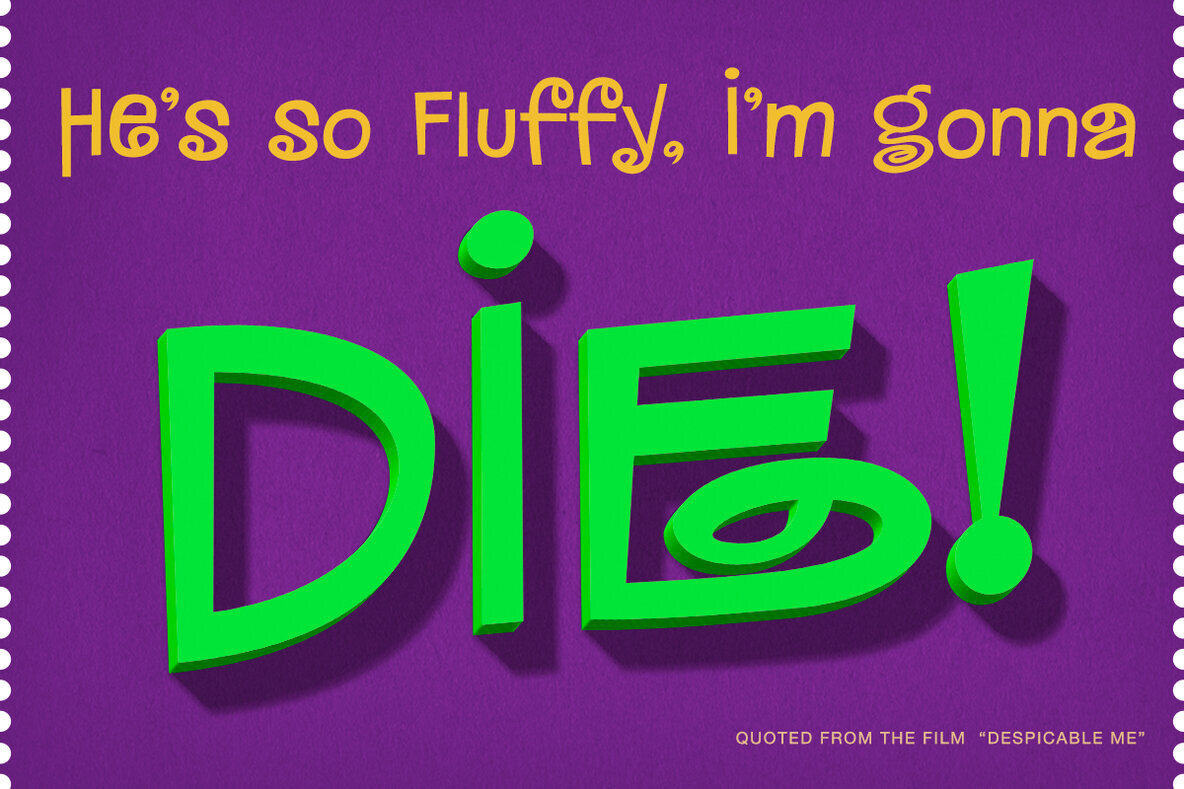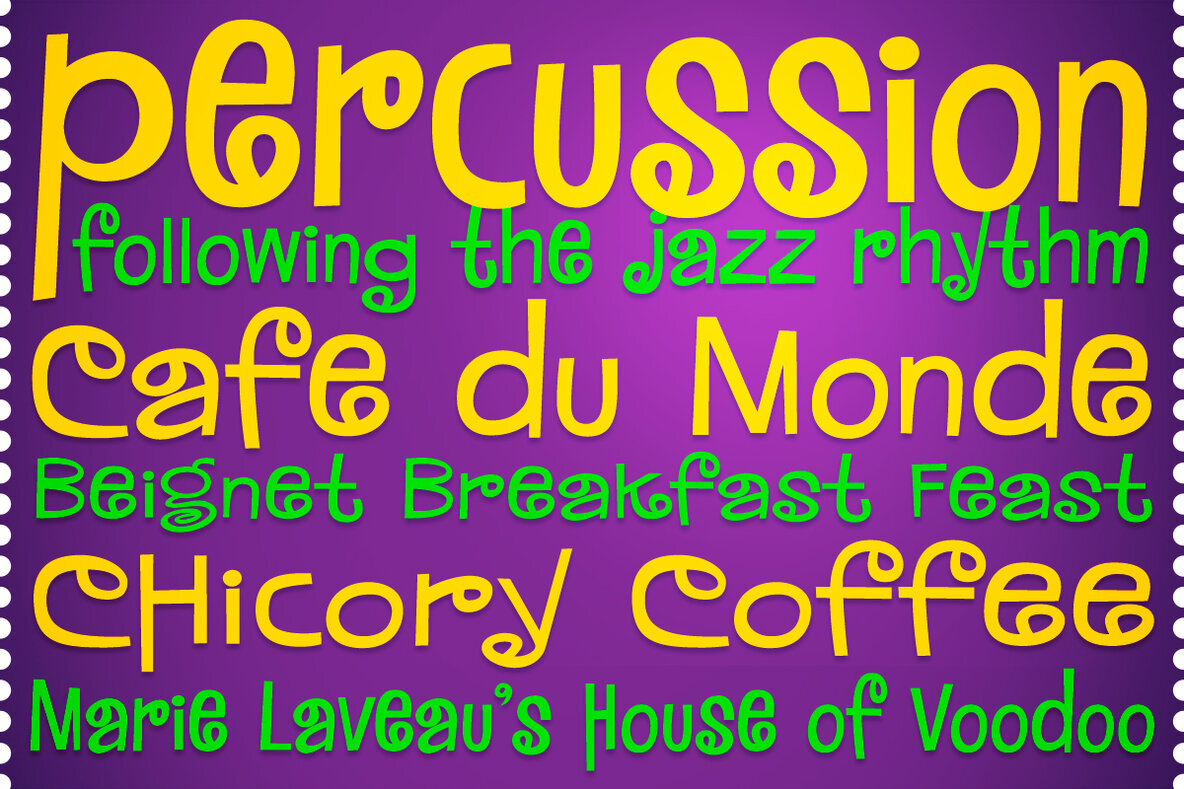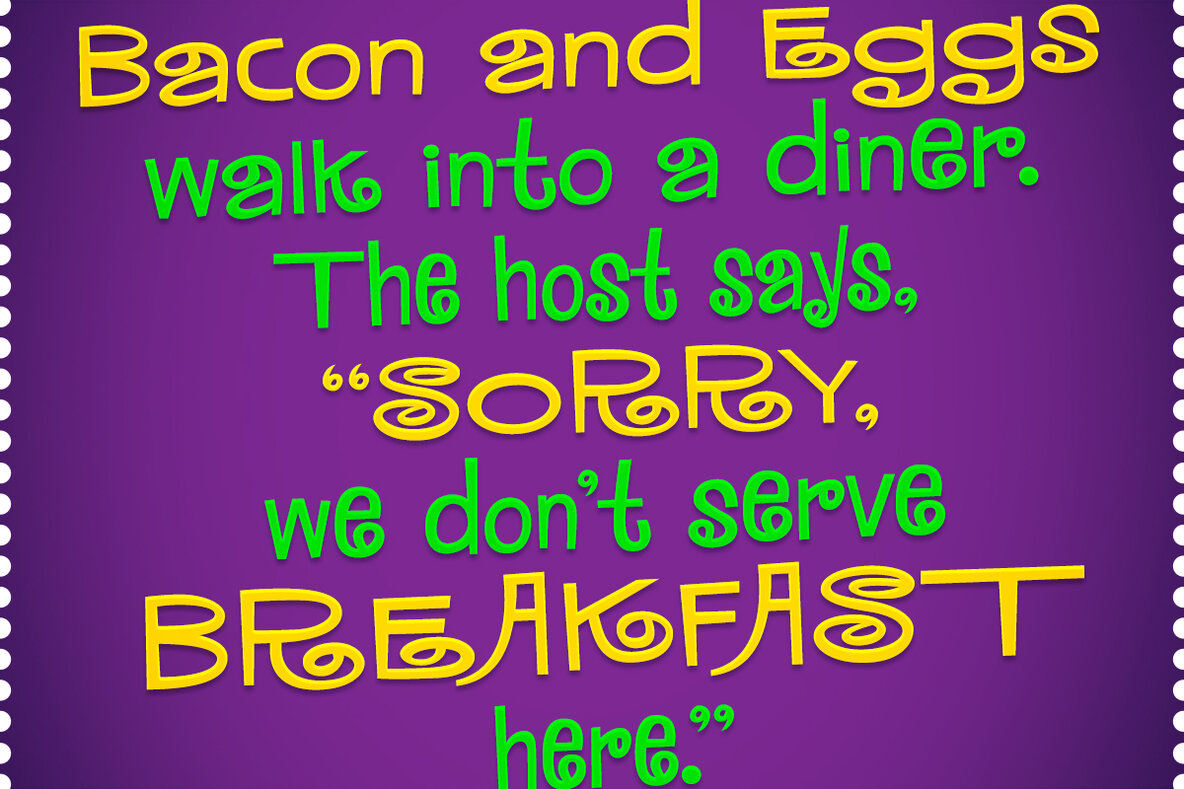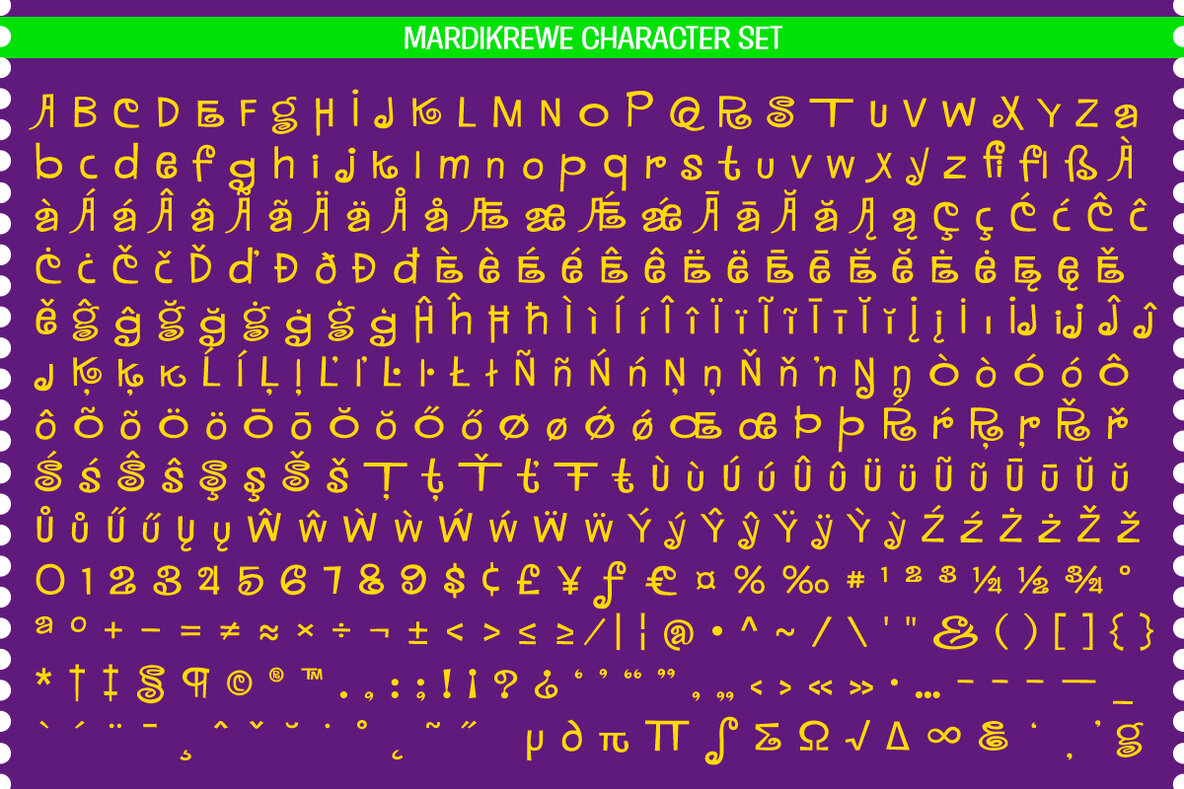
MardiKrewe Font
Mardi Krewe PB
Mardi Krewe PB ExNarrow
Mardi Krewe PB ExWide
Mardi Krewe PB Narrow
Mardi Krewe PB Wide
The MardiKrewe typeface exudes a wild and carefree spirit, packed with spunk and personality. Originally inspired by the film typeface MardiGras from Lettergraphics, it has been transformed into a fully fleshed-out character set. This vibrant font family now includes five distinct widths: Extra Narrow, Regular, Wide, and Extra Wide, offering versatility to suit a wide range of creative and dynamic design projects.
This typeface is perfect for designers seeking to inject fun and energy into their work, whether for digital designs, posters, or branding materials. The various widths provide flexibility, ensuring that the typeface can be adapted to different visual styles while maintaining its playful and spirited essence. Choose MardiKrewe to add a distinctive flair and funky attitude to your designs, capturing attention with its unique character.